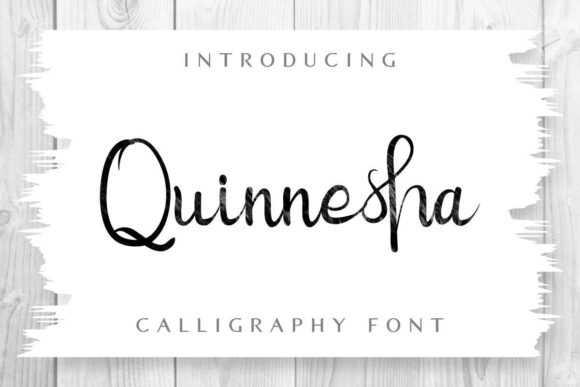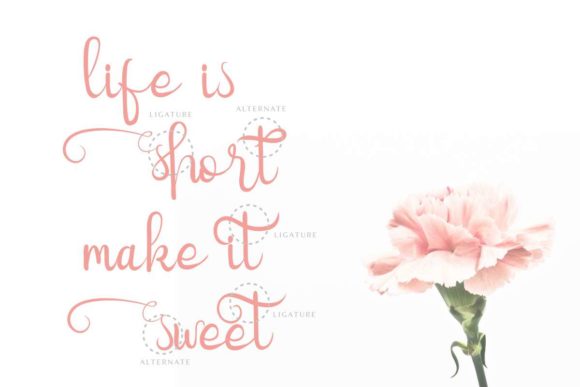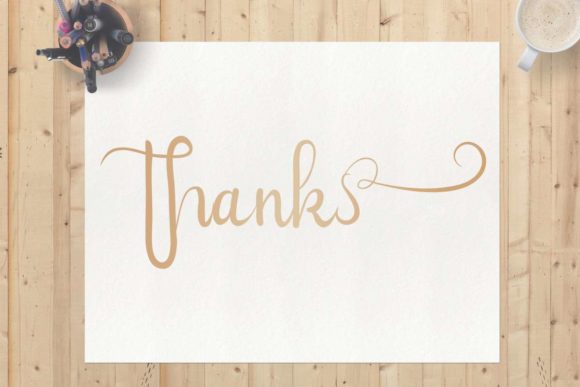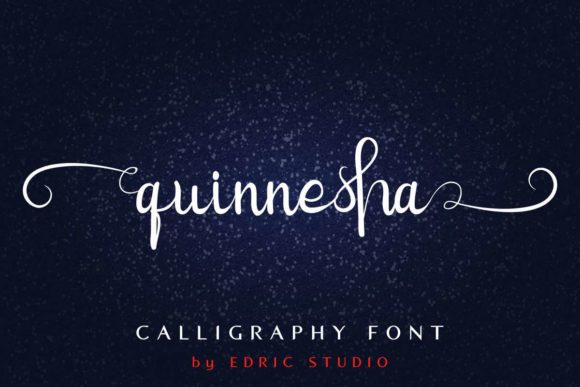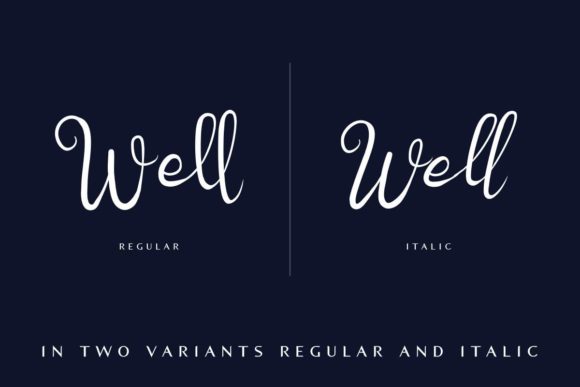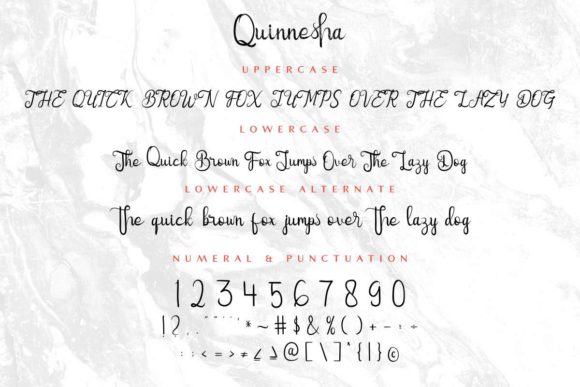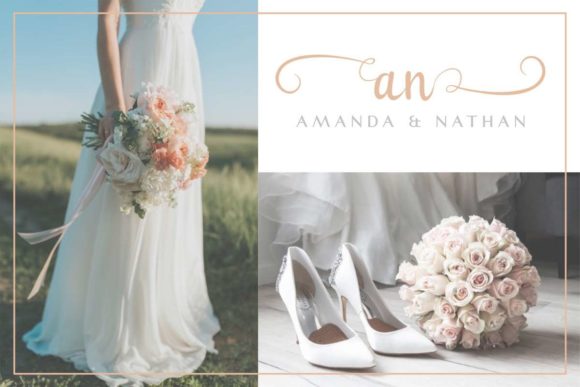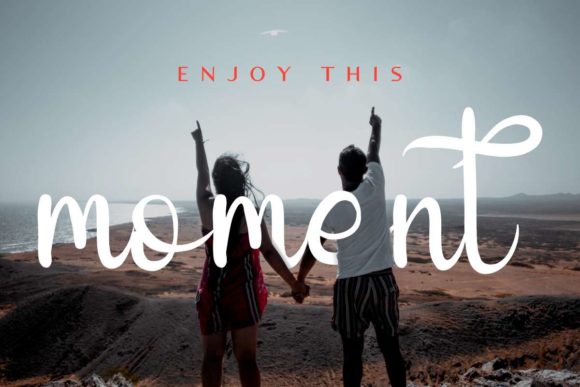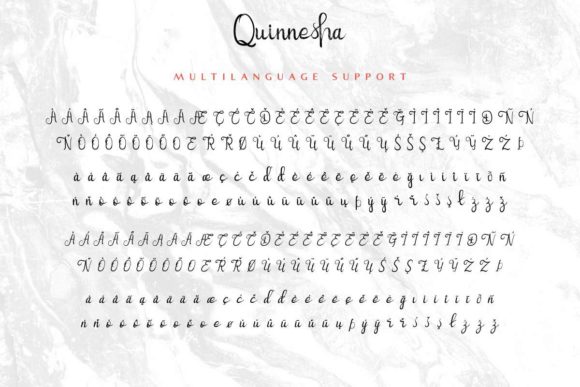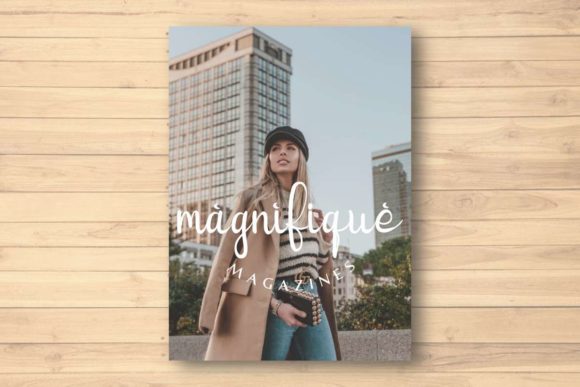
HomeScript FontsQuinnesha Font Script Fonts Quinnesha Font FacebookXPinterestWhatsApp Quinnesha Font Poster 2 Quinnesha Font Poster 3 Quinnesha Font Poster 4 Quinnesha Font Poster 5 Quinnesha Font Poster 6 Quinnesha Font Poster 7 Quinnesha Font Poster 8 Quinnesha Font Poster 9 Quinnesha Font Poster 10 Quinnesha Font Poster 11 About Quinnesha Font Quinnesha is a gorgeous handwritten font full of life. Use it to take any design idea to the next level. DOWNLOAD ON CREATIVE FABRICAThis font is sold and delivered by Creative Fabrica. Font Canyon may earn a commission if you buy through this link. People also explored Sella Mella Font Signalist Sunset Bella Canvas 3001 T Shirt Mockup Play Hash Font Nature Green Font Rosehot Font Asia Tiger Font Rosena Font De Sandey Font 298 0 TagsQuinnesha Font Previous articleBlindspot FontNext articleJonatan Eve Font LEAVE A REPLY Cancel reply Comment: Please enter your comment! Name:* Please enter your name here Email:* You have entered an incorrect email address! Please enter your email address here Website: Save my name, email, and website in this browser for the next time I comment. Personal Use Free The Quick Personal Use Free Read more about this font Beautiful Personal Use Free Read more about this font Ontel Personal Use Free Read more about this font Pompom Personal Use Free Read more about this font BLOG Best Fonts for T-Shirt Design – Top 2025 Picks In 2025, t-shirt design has become more than just fashion—it's a form of self-expression. Whether you're... Where to Buy American Fonts Online in 2024 Top 10 Handwritten Fonts That Elevate Your Designs 5 Fonts That Will Dominate Design Trends in 2026